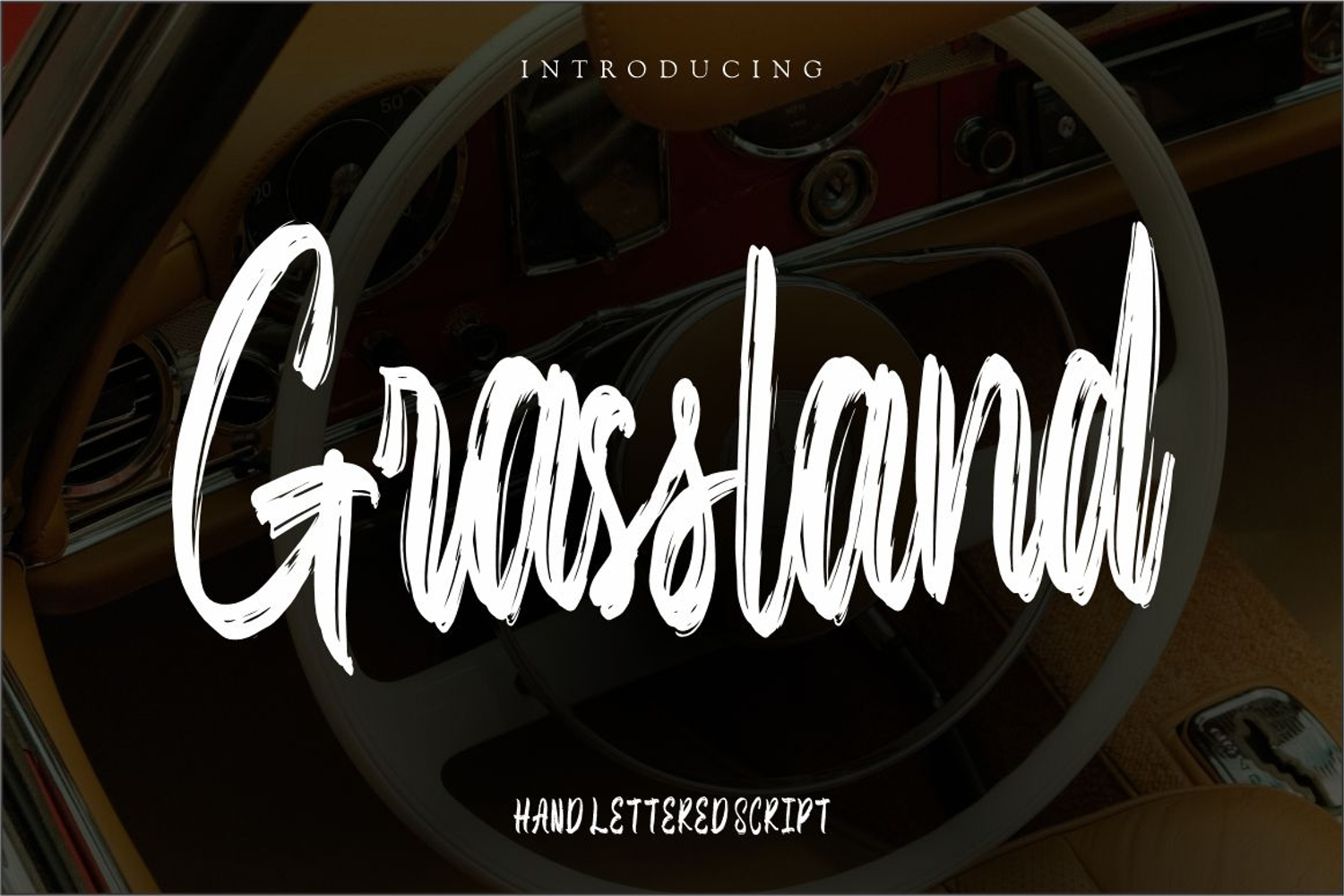
Grassland
Grassland is textured brush font, a contemporary approach to design, with a handmade natural and irregular baseline. Suitable for use in title design. Such as apparel, invitations, book tittles, stationery design, quotes, branding, logos, greeting cards, t-shirts, packaging design, posters and more.